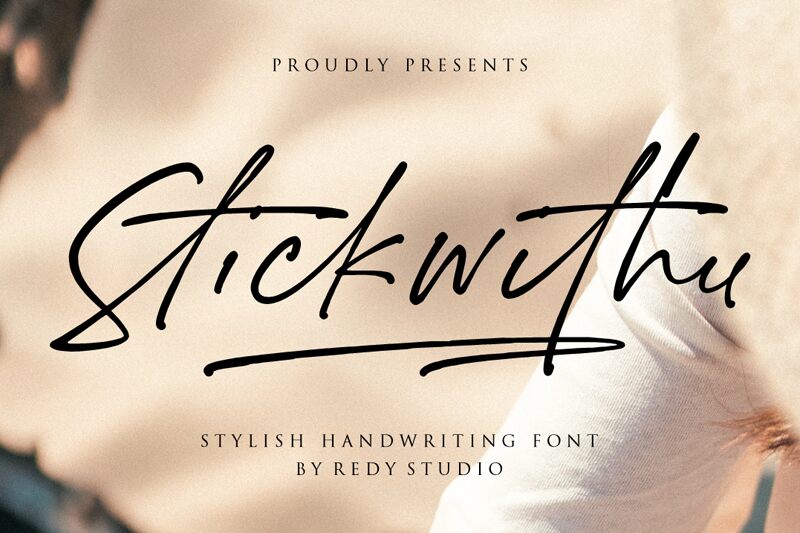
Stickwithu, the extra-light handwritten signature font by Redy Studio, is the perfect choice for projects that require a personal touch. Its semi-condensed width lends itself well to designs that need to fit more text in less space, while still maintaining a stylish and sophisticated look. This font is ideal for wedding invitations, greeting cards, logos, and branding materials. With its fluid lines and elegant curves, Stickwithu adds a touch of class to any project. Get creative and let this beautiful typeface become your go-to for all your design needs.